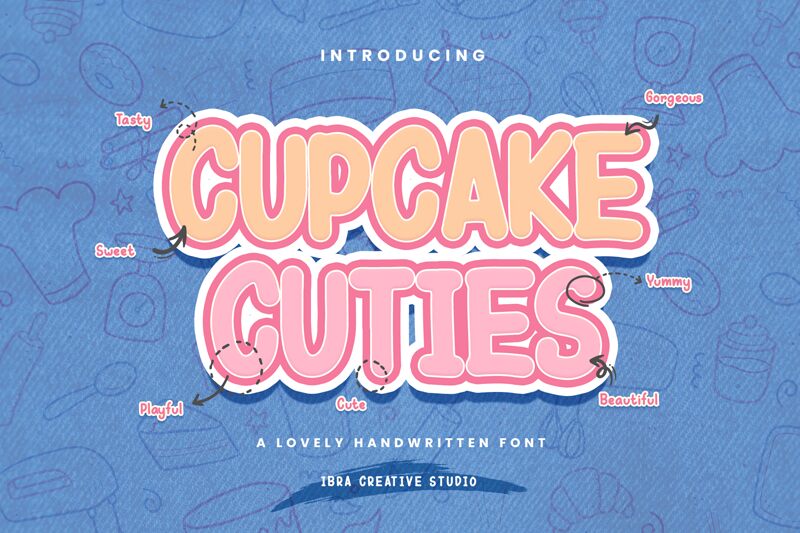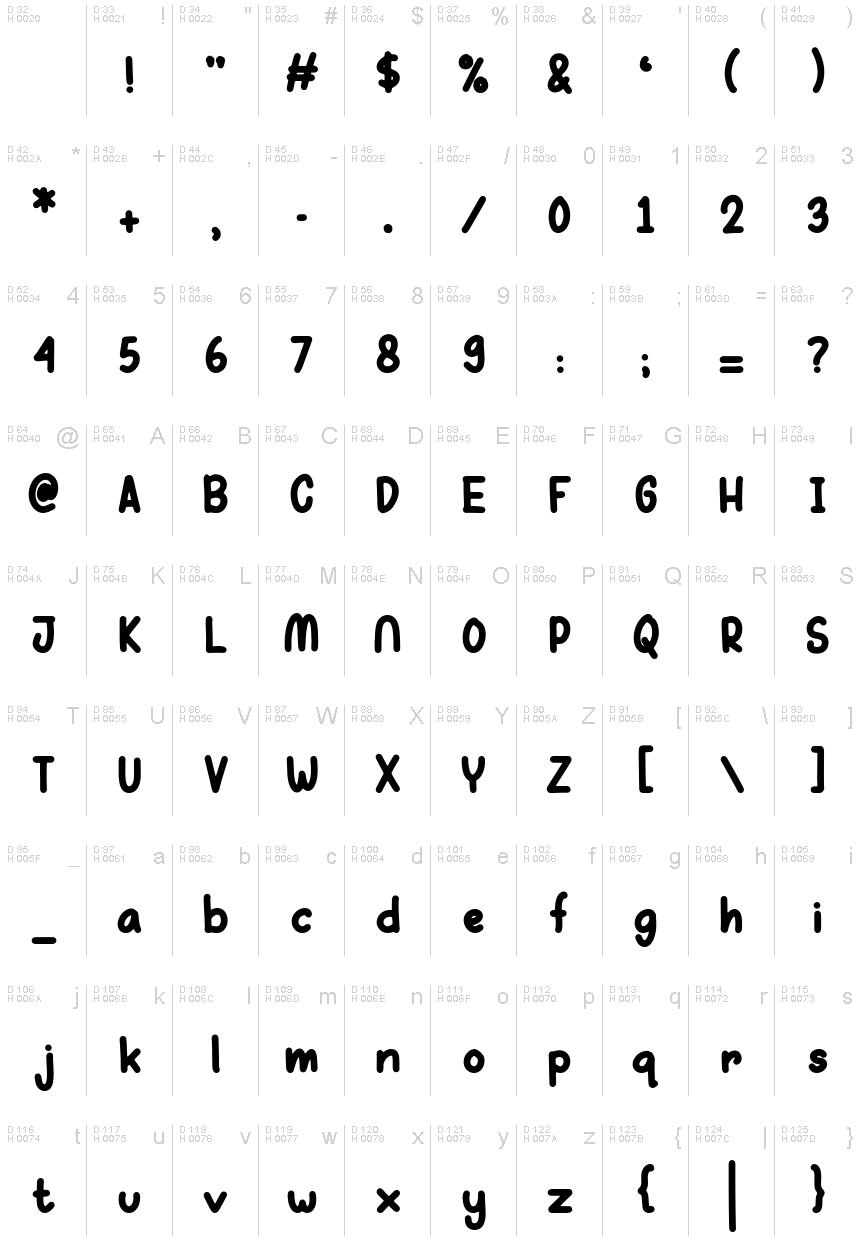
Cupcake Cuties Regular
Cupcake Cuties font, designed by Ibra Creative Studio, exudes a charming handwritten style that immediately captures attention. Characterized by its playful curves and whimsical flair, this font radiates warmth and creativity. Its light strokes lend an airy feel, making it perfect for projects that require a friendly touch.
Ideal for branding bakeries, children’s products, or any design needing a sprinkle of joy, Cupcake Cuties effortlessly enhances invitations and social media graphics with its inviting personality. The slightly exaggerated forms add uniqueness to each letter, allowing text to playfully dance across the page. In essence, this font breathes life into any project it graces, making it a delightful choice for creative expressions seeking distinctiveness and charm.